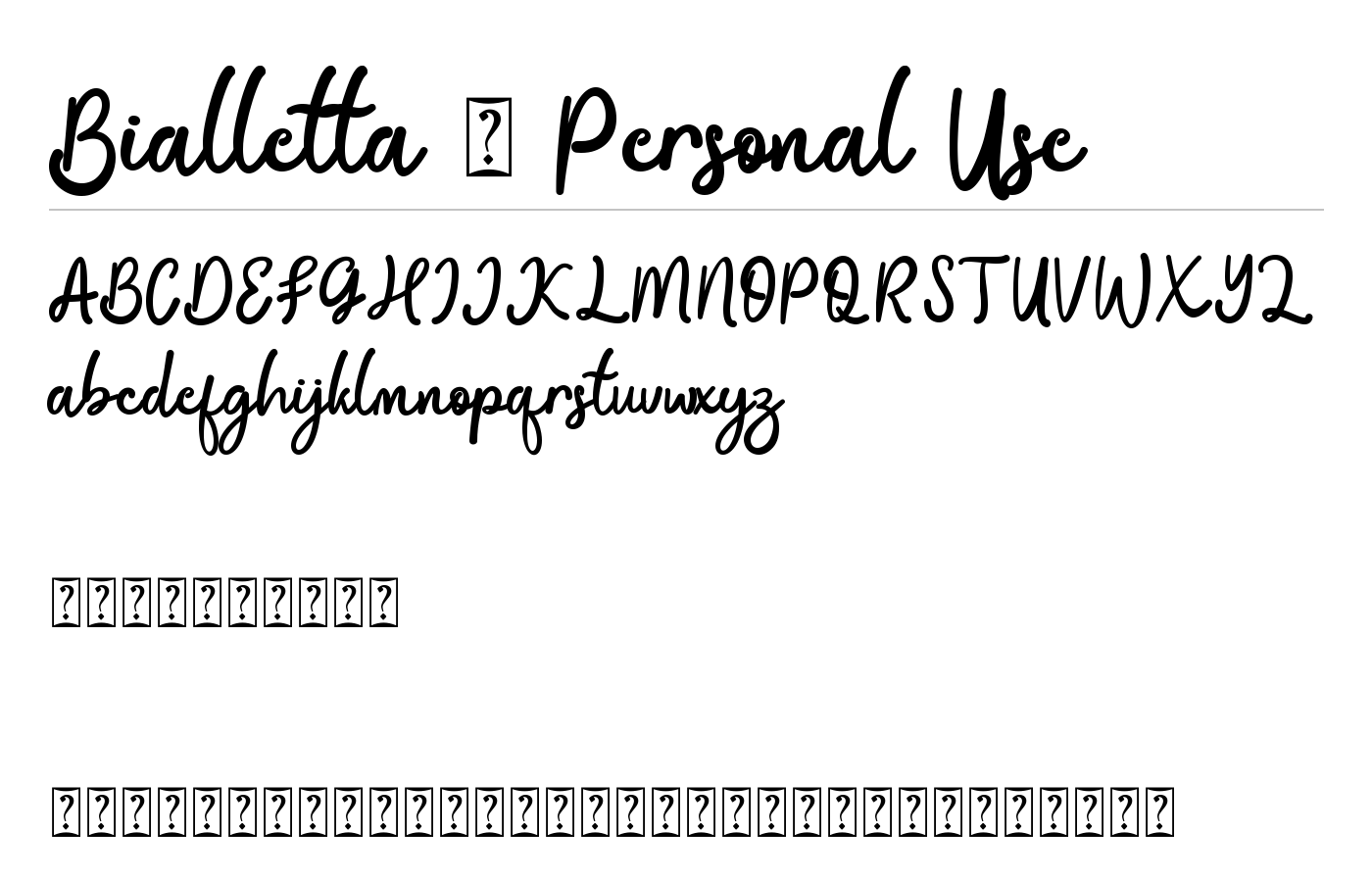
Bialletta is a lively, handwritten script font with a casual and friendly feel. Its smooth, flowing strokes and moderately tall x-height make it highly legible while maintaining a personal, approachable style. This font works beautifully for informal branding, invitations, and creative projects where a warm, hand-crafted touch is desired.
Bialletta Font
About Bialletta Font
| Font family | Bialletta Font |
| Designer | Yogaletter 2020 (Isroni Yoga Prasetya) |